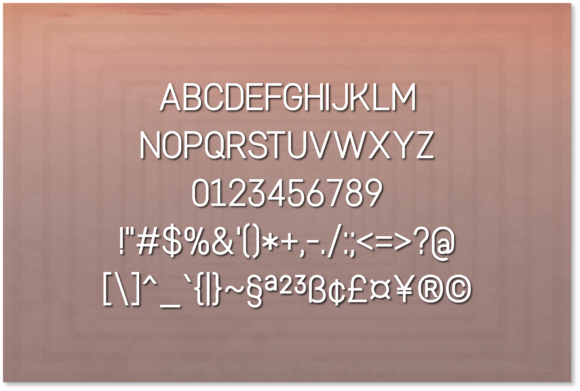
Introducing Clarsly Semi-Bold Font: Elevate Your Designs with Timeless Elegance
In the world of typography, fonts play a crucial role in conveying the message and aesthetic of a design. For designers and crafters seeking a modern, yet elegant solution, Clarsly Semi-Bold Font is an excellent choice. This versatile sans serif font is designed to bring a touch of sophistication to various design projects, from body text to headlines.
The Characteristics of Clarsly Semi-Bold Font
Clarsly Semi-Bold Font is part of the Clarsly font family, known for its minimalist and modern aesthetic. The semi-bold variation offers a perfect balance between elegance and readability, making it suitable for a wide range of applications. The font’s clean lines, subtle curves, and carefully crafted letterforms create a harmonious visual experience.
Key Features of Clarsly Semi-Bold Font
• Minimalist and Modern Design: Clarsly Semi-Bold Font boasts a sleek, contemporary look that fits perfectly into modern design trends.
• Elegant and Sophisticated: The semi-bold weight adds a touch of elegance, making it ideal for designs that require a bit more flair without compromising readability.
• Versatile: This font is incredibly versatile, suitable for use in body text, headlines, and everything in between.
• Timeless Appeal: Despite its modern design, Clarsly Semi-Bold Font has a timeless quality that ensures your designs won’t look dated anytime soon.
Applications of Clarsly Semi-Bold Font
The versatility of Clarsly Semi-Bold Font makes it an excellent choice for various design projects. Here are some of the areas where this font truly shines:
• Digital and Print Media: Whether you’re working on a website, mobile app, brochure, or poster, Clarsly Semi-Bold Font can elevate your design with its elegant and modern look.
• Branding and Logo Design: For brands looking for a sophisticated and contemporary image, Clarsly Semi-Bold Font can be a valuable asset in creating a memorable logo.
• Packaging Design: The font’s clarity and elegance make it suitable for product packaging, helping brands stand out on store shelves.
• Advertising and Marketing Materials: For ads, flyers, and marketing materials, Clarsly Semi-Bold Font can help grab attention while conveying a sense of professionalism.
Tips for Using Clarsly Semi-Bold Font Effectively
To maximize the impact of Clarsly Semi-Bold Font in your designs, consider the following tips:
• Mix and Match: Don’t be afraid to combine Clarsly Semi-Bold Font with other fonts to create visual interest. Its versatility makes it a great pairing font.
• Pay Attention to Spacing: Ensure adequate spacing between letters and lines to maintain readability and enhance the font’s elegant appearance.
• Use it for Headlines and Subheadings: The semi-bold weight makes it perfect for headlines and subheadings, adding emphasis without overpowering the content.
Font Name Clarsly Semi-Bold Font
Author Huntype
Clarsly Semi-Bold Font offers designers and crafters a powerful tool to elevate their designs with a touch of elegance and modernity. Its versatility, readability, and timeless appeal make it an excellent choice for a wide range of applications. By incorporating Clarsly Semi-Bold Font into your design projects, you can ensure a sophisticated and contemporary look that stands out in today’s competitive design landscape.
Whether you’re working on digital projects, print materials, or branding initiatives, Clarsly Semi-Bold Font is guaranteed to add a professional and stylish touch. Explore the possibilities of Clarsly Semi-Bold Font today and discover how it can transform your designs into visually stunning and effective communications.